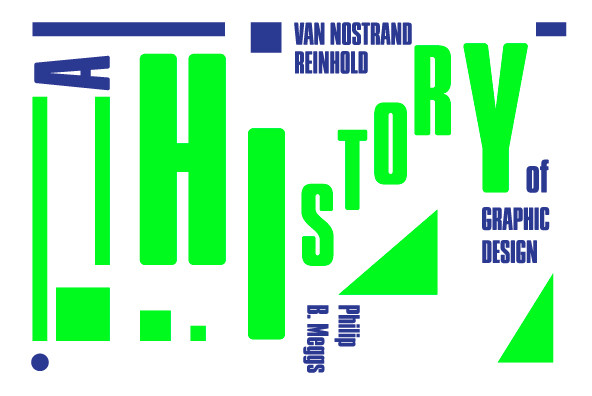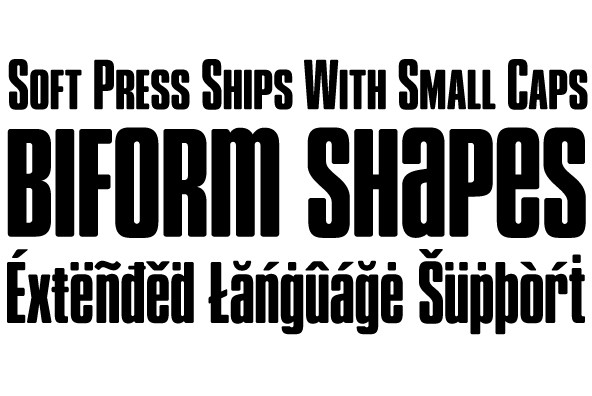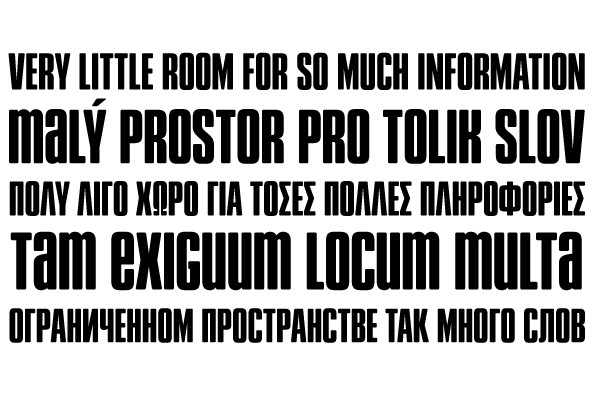
Soft Press
This is the rounded, softer version of Canada Type's popular Press Gothic Originally done in 2011 for a global publisher, this font has already seen plenty of magazine and book cover action, perhaps even more than the sharp condensed face that spawned it And like Press Gothic, Soft Press comes with small caps and biform/unicase forms, in addition to the main upper/lowercase set The extended language support covers a wide range, including Greek and Cyrillic, Turkish, Baltic, Central and Eastern European languages, Celtic/Welsh and Esperanto The Pro version combines all three TrueType fonts into one OpenType-programmed font, taking advantage of class-based kerning, the small caps feature, and the stylistic alternates feature for the biform shapes.